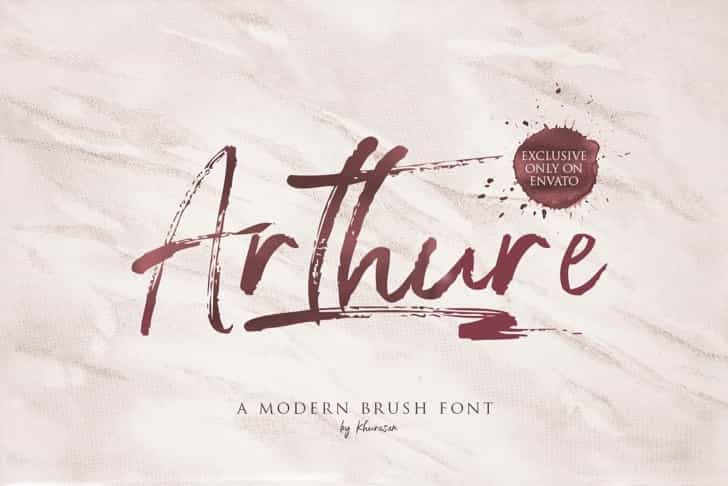
Introducing Arthure Font! – A primitive and imperfect script, written by hand with rough lines and awesome character. Arthure Font is the best choice for those who want to make a strong impression in professional branding, advertising, poster design and more.